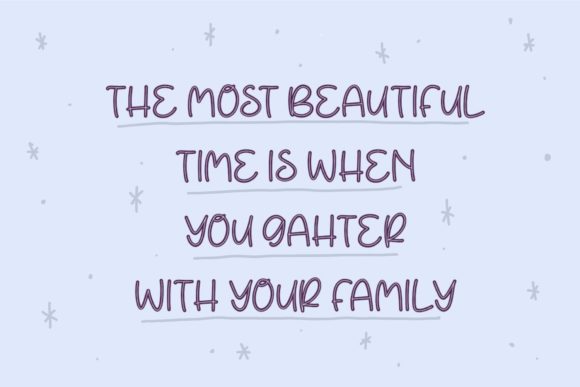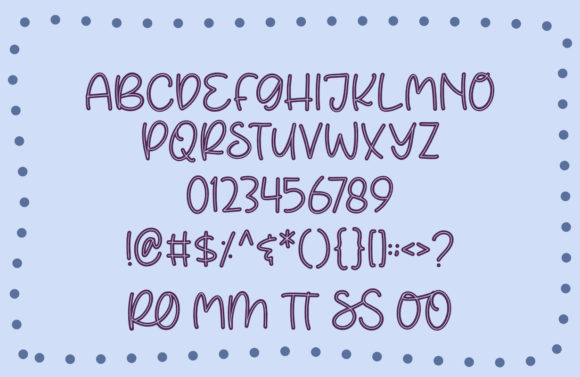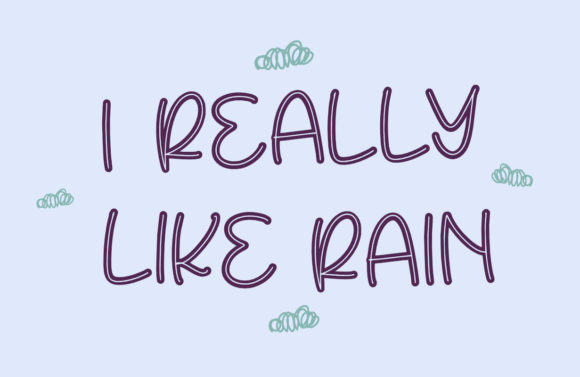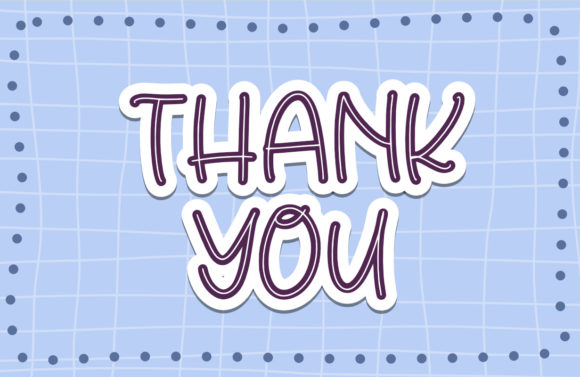
Introduction to Panica Dance Font
Do you remember the first time you picked up a crayon and started drawing? The excitement, the creativity, the freedom to express yourself? That’s exactly what the Panica Dance Font brings to your design projects – a sense of playfulness and authenticity.
As a designer, you’re always on the lookout for that perfect design resource to elevate your creative project. And that’s where the Panica Dance Font comes in. This high-quality, free download font is a must-have for anyone looking to add a personal touch to their work. With its transparent background and beautiful handwritten style, it’s perfect for kids’ activities, school projects, and even personal branding.
Key Features of Panica Dance Font
- High-quality design resource ideal for creative projects that require a unique touch.
- Unique, hand-drawn style that adds a touch of personality to any design project.
- Perfect for use in digital design, print materials, and web applications, including logos, icons, and graphics.
Honest Review: Panica Dance Font
I recently stumbled upon the Panica Dance Font, and I must say it’s been a game-changer for my design projects. The high quality of the font is evident, and it’s perfect for adding a touch of sophistication to my creative work.
- ✨ High-quality design: The Panica Dance Font is incredibly detailed and has a sleek, modern look that’s perfect for contemporary designs.
- ✨ Versatility: This font is suitable for a wide range of design projects, from business cards to posters and even digital products.
- ⚠️ Limited font styles: While the Panica Dance Font is high-quality, it’s only available in a few styles, which might limit its use in certain design projects.
Overall, I’m impressed with the Panica Dance Font and would highly recommend it to designers looking for a high-quality, free resource. It’s been a valuable addition to my design toolbox, and I’m excited to see how I can incorporate it into future creative projects.
The Panica Dance Font is ideal for creative projects that require a fun and playful touch, such as social media graphics, event invitations, and children’s educational materials. Its unique style makes it perfect for designers looking to add a touch of whimsy to their designs.